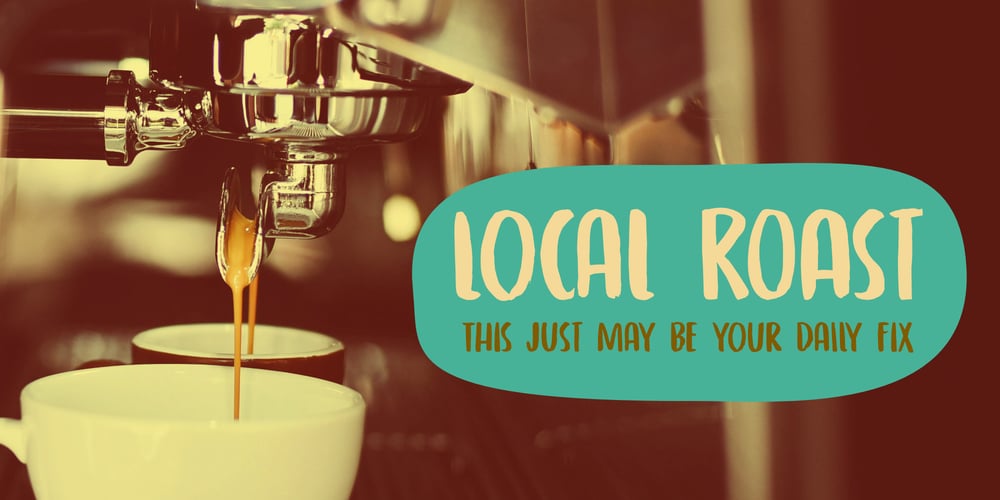
Local Roast Font Family was designed by David Kerkhoff and published by Hanoded. Local Roast contains 2 styles and family package options. My brother in law Jasper works for an NGO. He often has to visit projects in such far-flung places like Bangladesh, Sudan or Uganda. Lately he brought back some coffee beans from Uganda and Ethiopia, because he knows I love coffee. The Ugandan local roast was fantastic, but I haven’t tried the Ethiopian coffee yet.Local Roast is a hand-painted font (Chinese Ink, cheap brush – you know the story). It comes with a set of alternates and extensive language support.